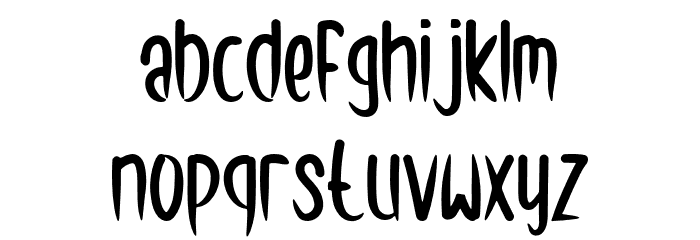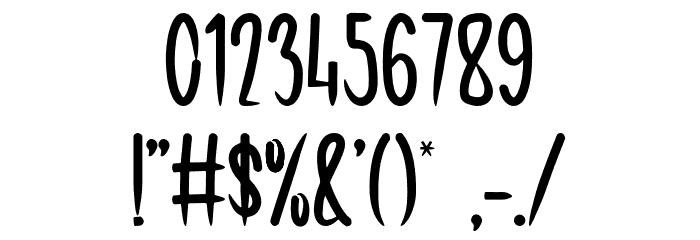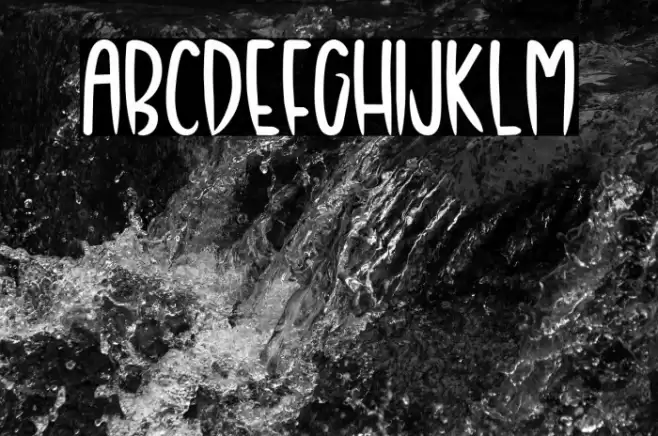
Baby Boy Font
This playful and whimsical font features a handwritten style with tall, narrow characters that convey a sense of fun and creativity. The letters have a smooth, rounded appearance with slight variations in stroke width, adding to the casual and informal feel. The uppercase and lowercase letters maintain a consistent style, while the numerals and special characters integrate seamlessly, making it versatile for various uses. The overall design is approachable and friendly, making it ideal for projects that require a personal touch.
A playful, handwritten font with tall, narrow characters and a whimsical style.
- Font: Baby Boy
- Proposed Projects: Ideal for children's book covers, playful branding, greeting cards, and creative posters.
- Category: Handwritten
- Overall Style: Playful